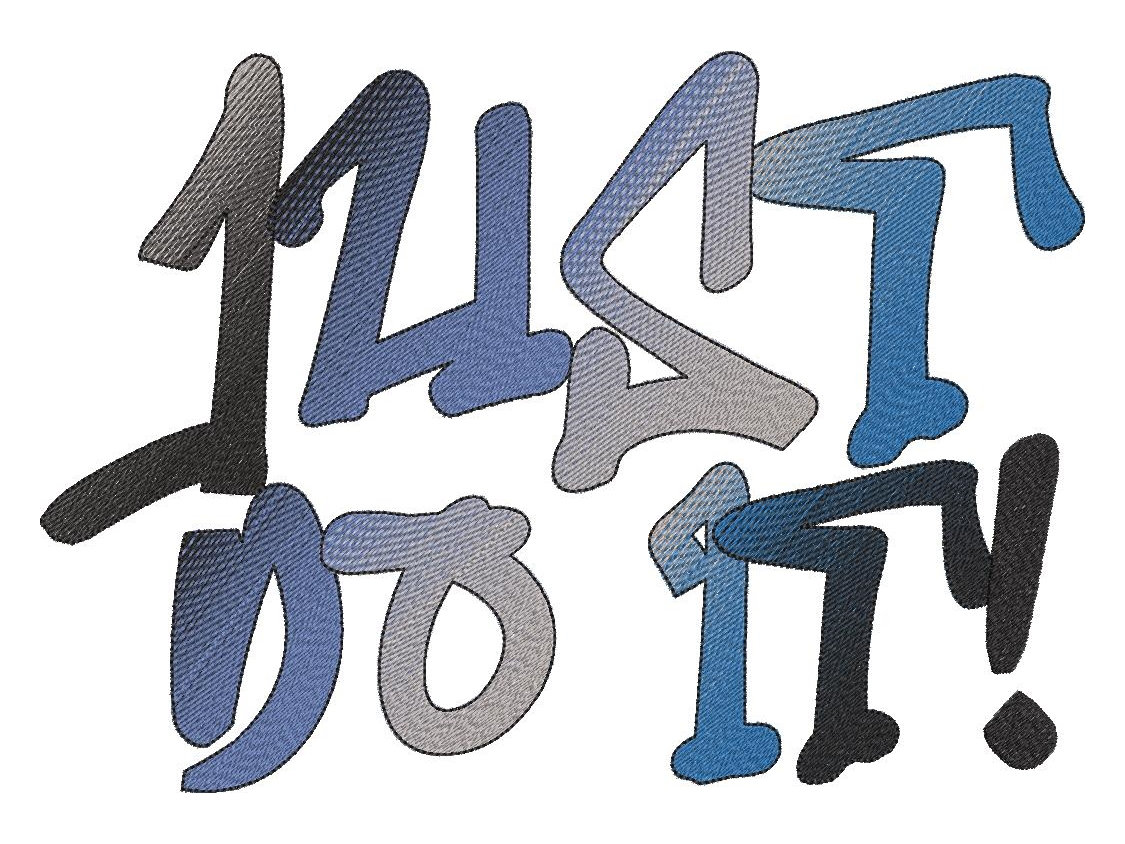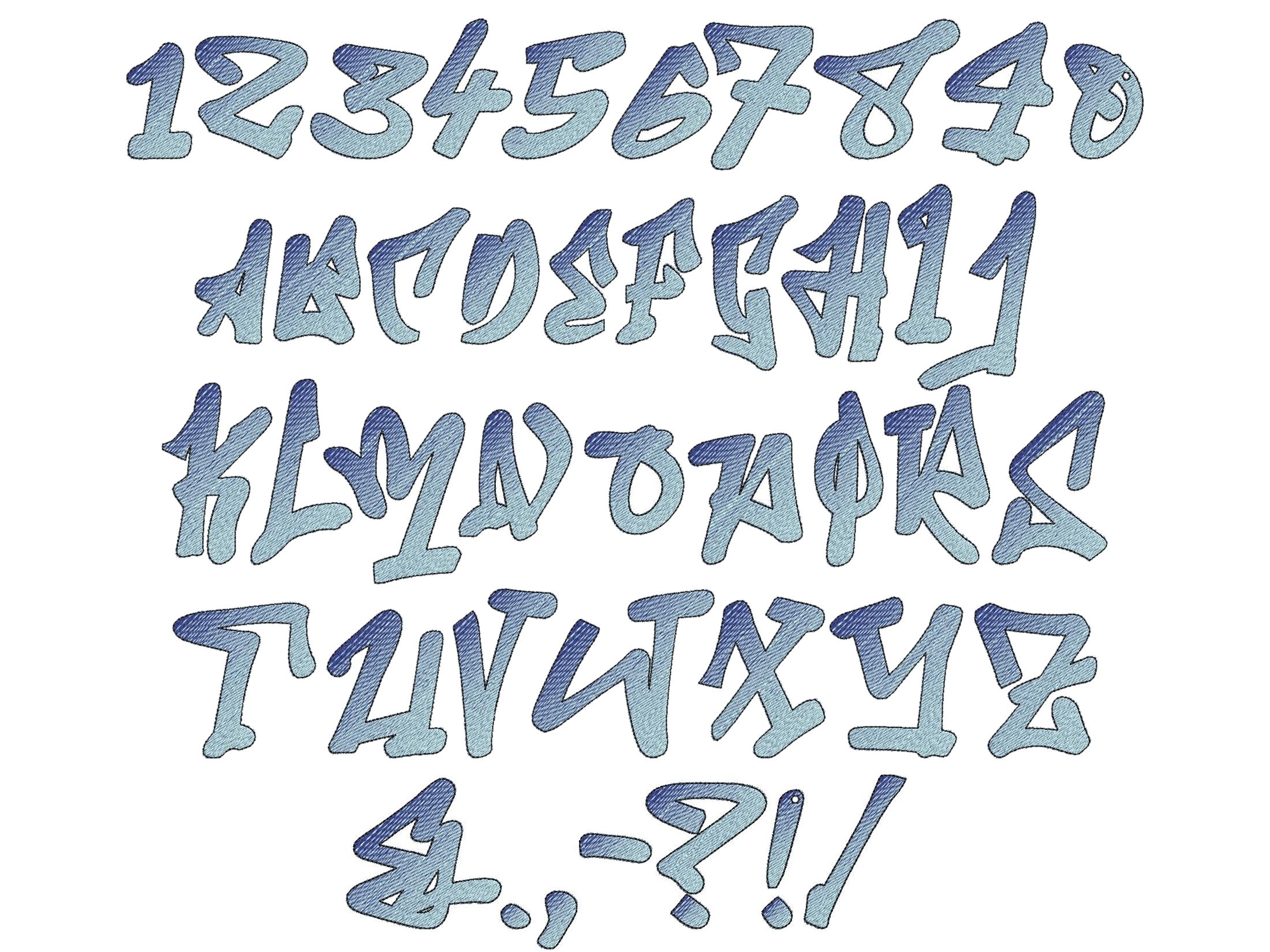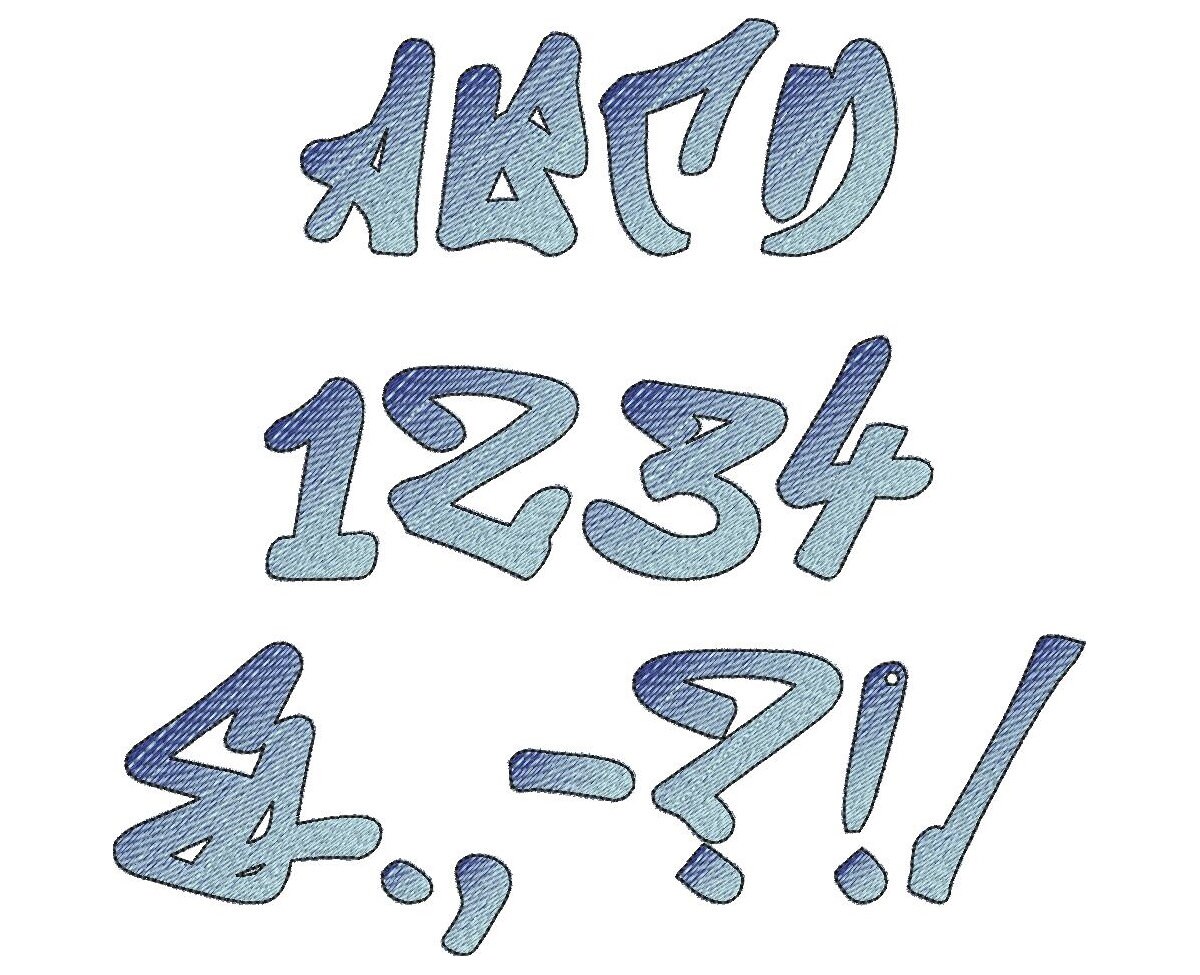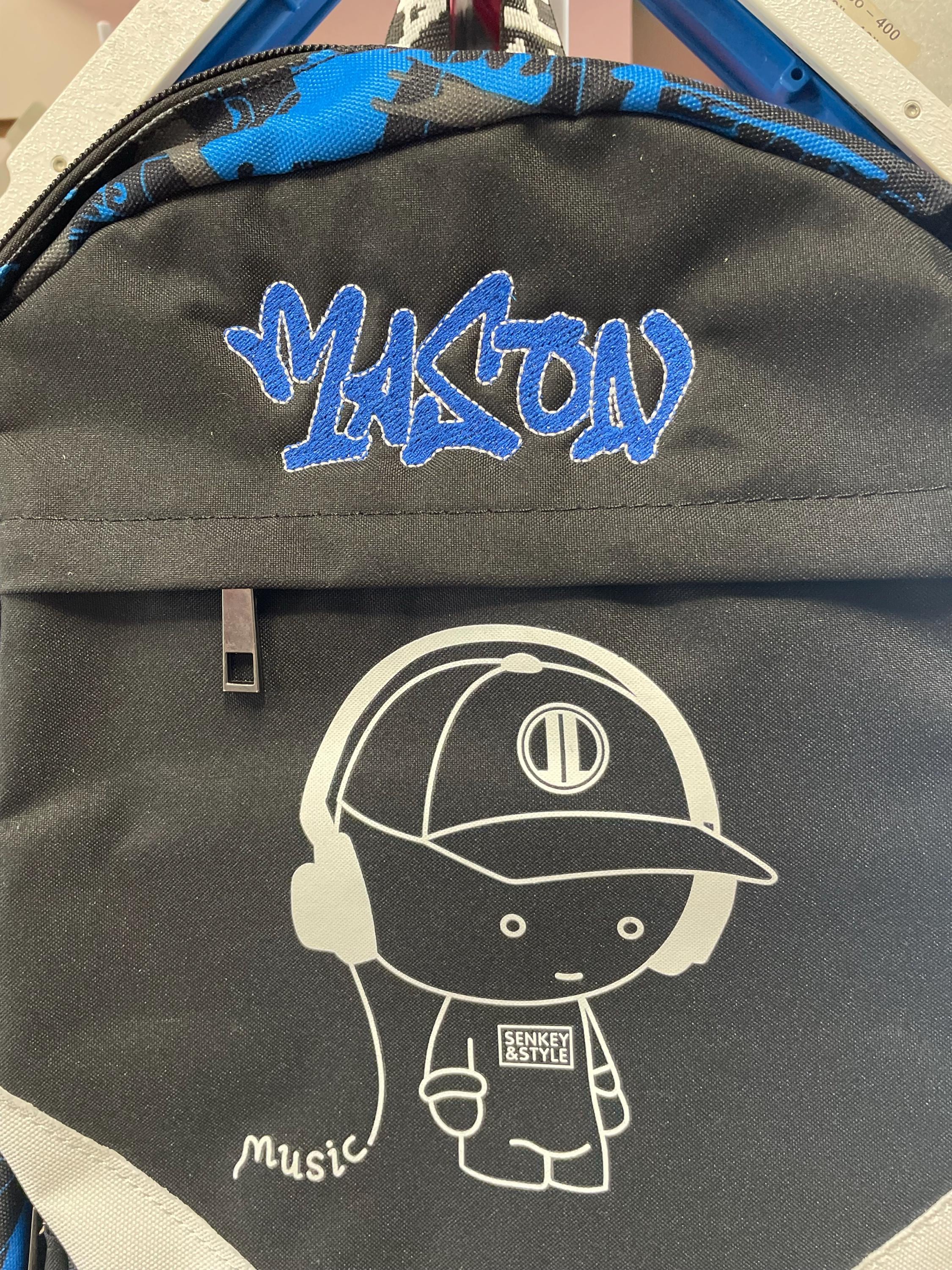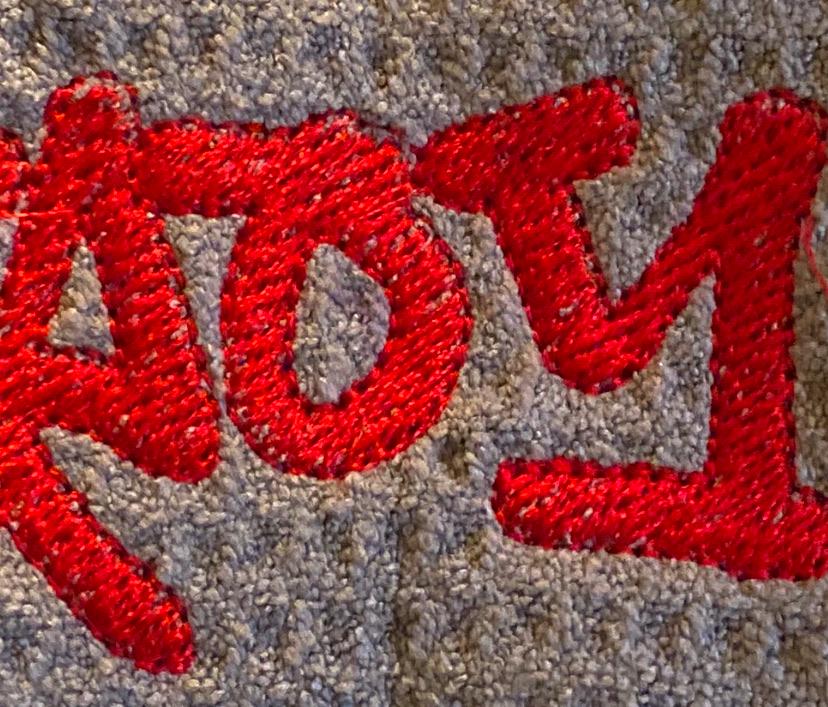
Graffiti iridescent font, BX included! NO special thread! 2 color monogram gradient FONT alphabet machine embroidery designs assorted sizes
No special thread is required!
It looks incredible! For this font, regular threads are used (not multi-colored).
The letters are stitched by usual threads, just used two colors to make a nice iridescent effect!
The pattern creates this amazing effect all by itself. Iridescent comes thanks to the design, every letter has 2 colors. While stitching on one side of the letter with one color, and on the other side stitches with the second color.
Included: uppercase letters, numbers, and punctuation.